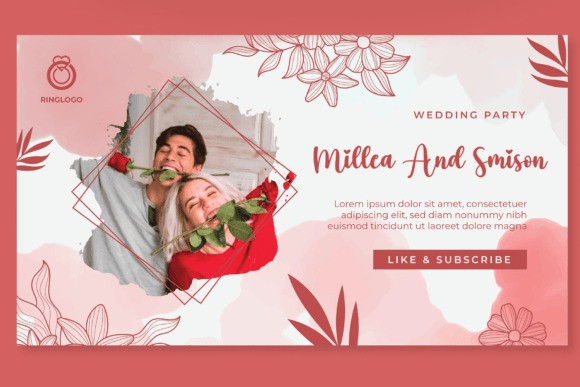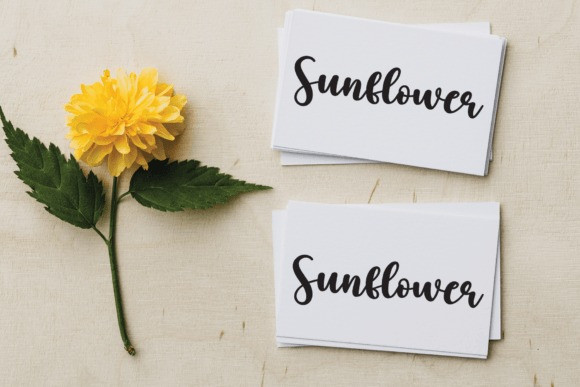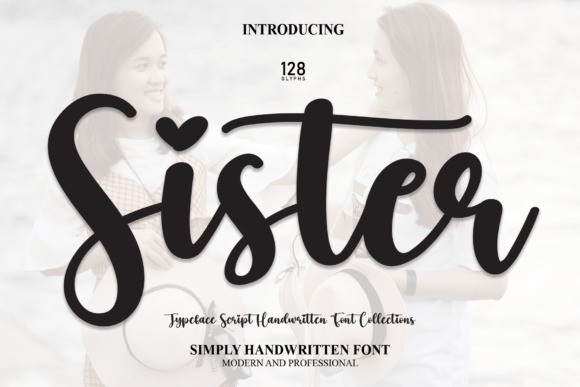
Sister Script Typeface
Sister Script Typeface is a sweet and cursive handwritten signature script font. This gentle font will look gorgeous on a variety of design ideas. It will add a joyful and romantic touch to each of your projects! Perfectly fit for branding, logo, wedding things, greeting cards, fashion, lookbook, marketing promotion, anytime you want to look fancy elegant but still casual.